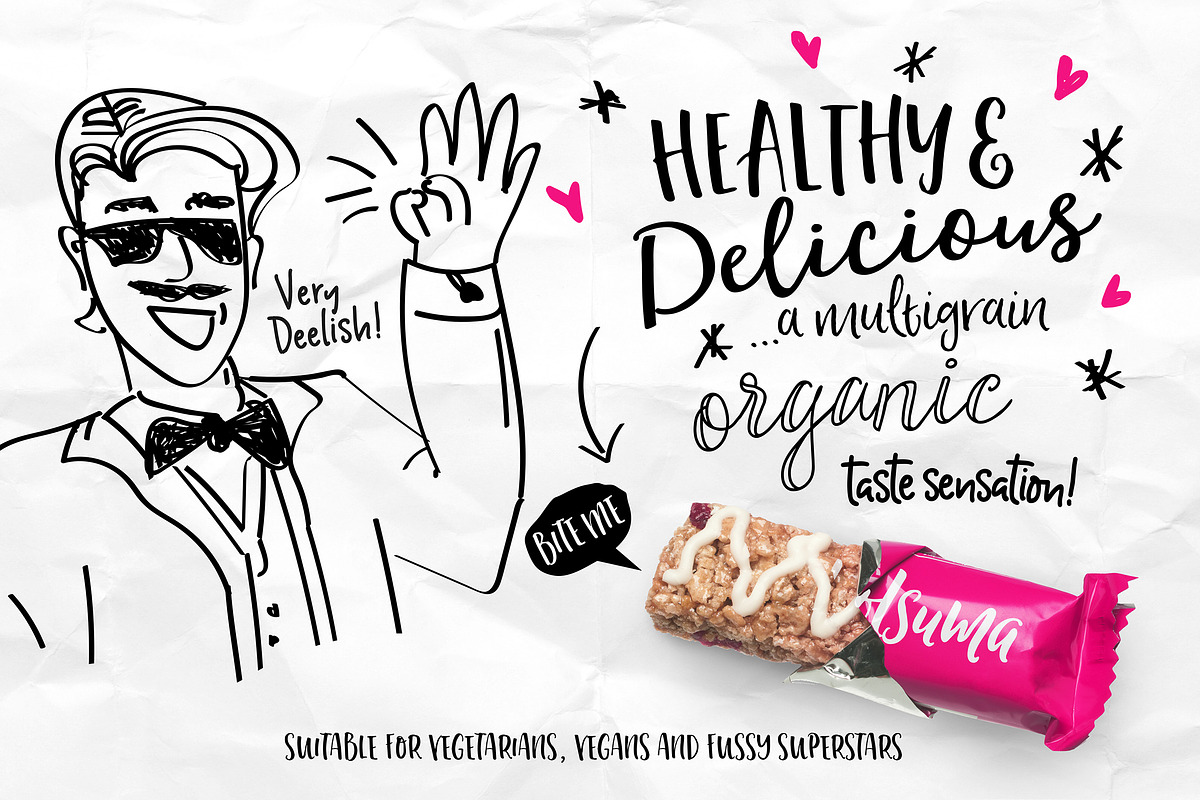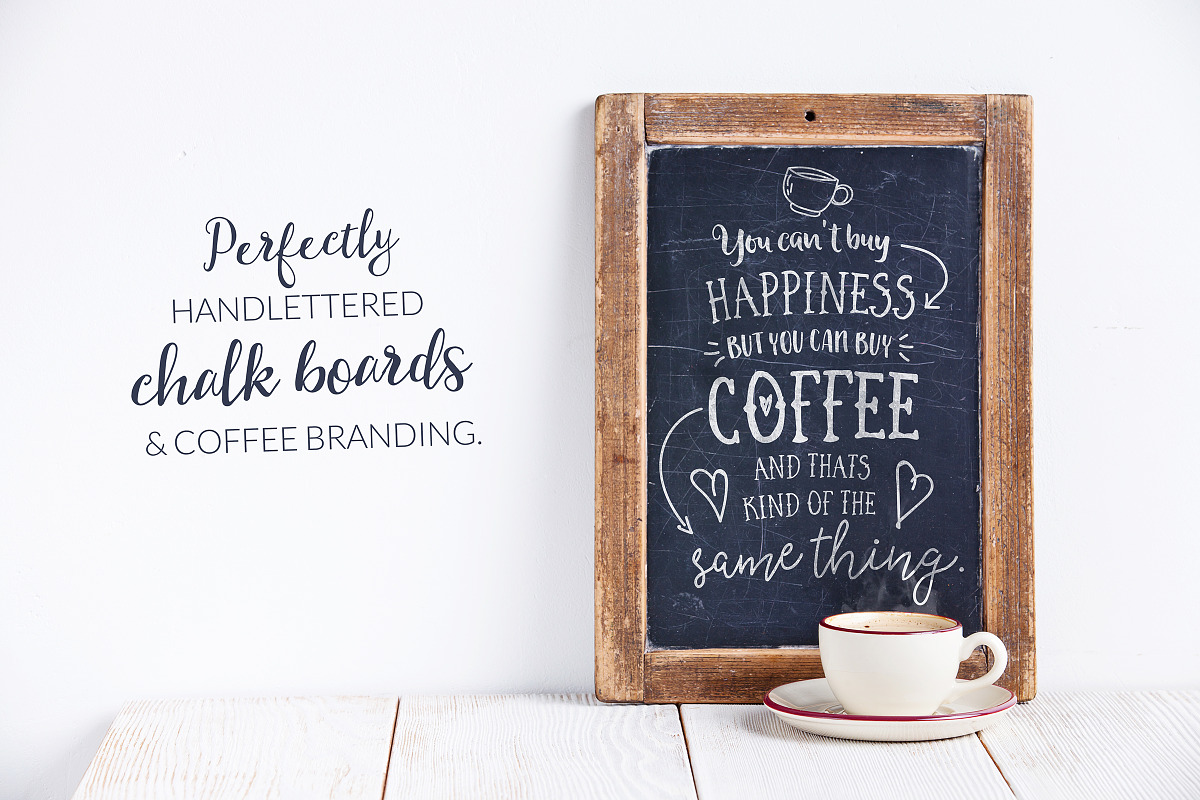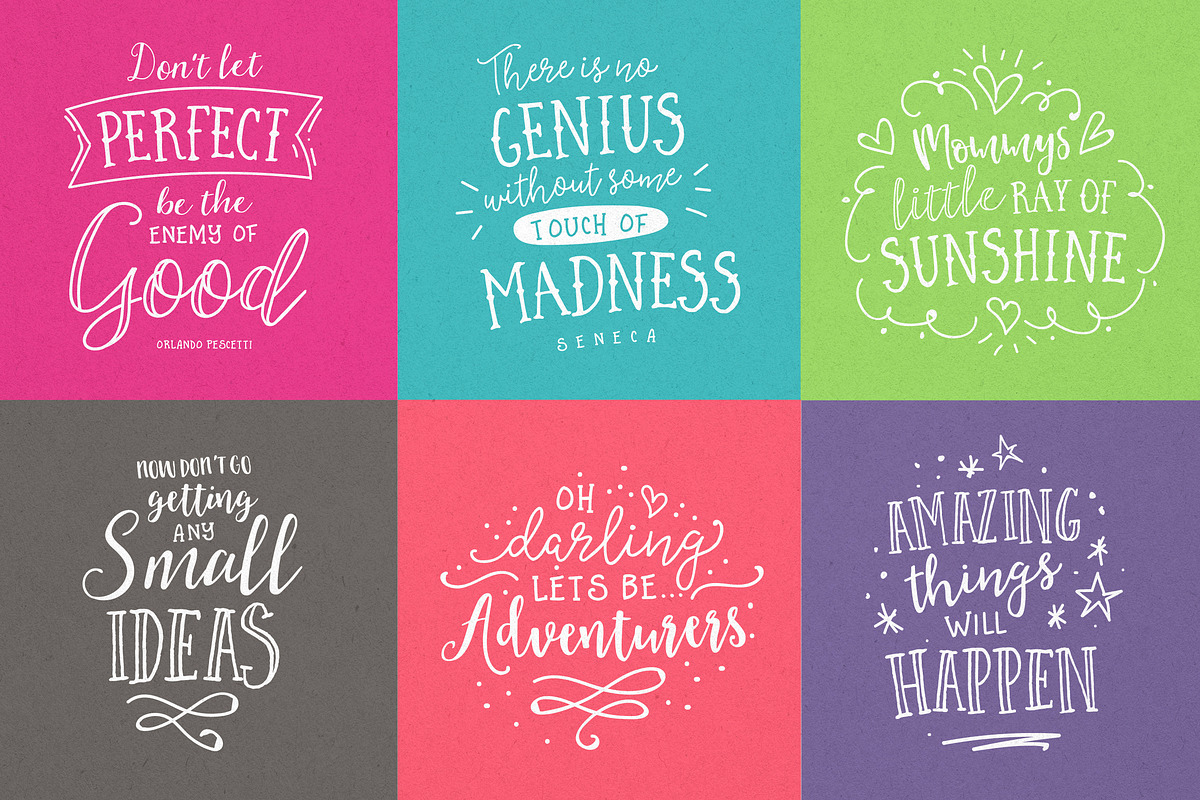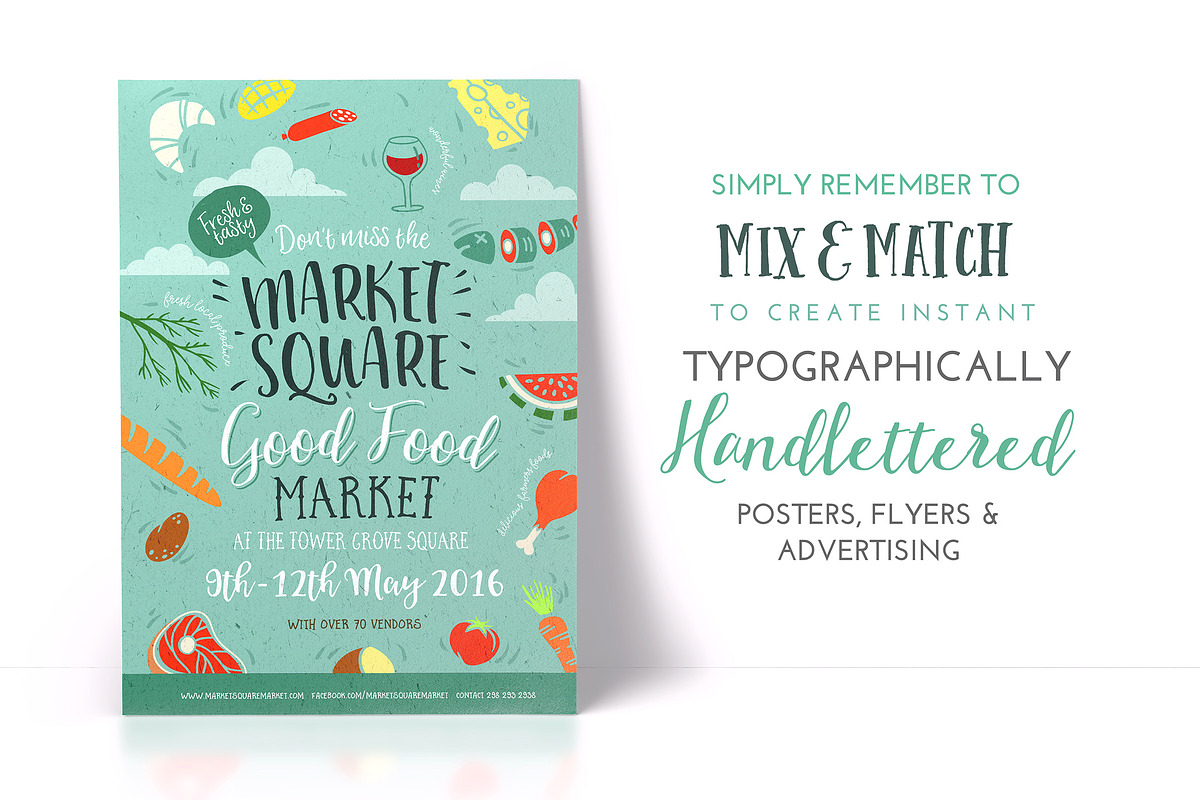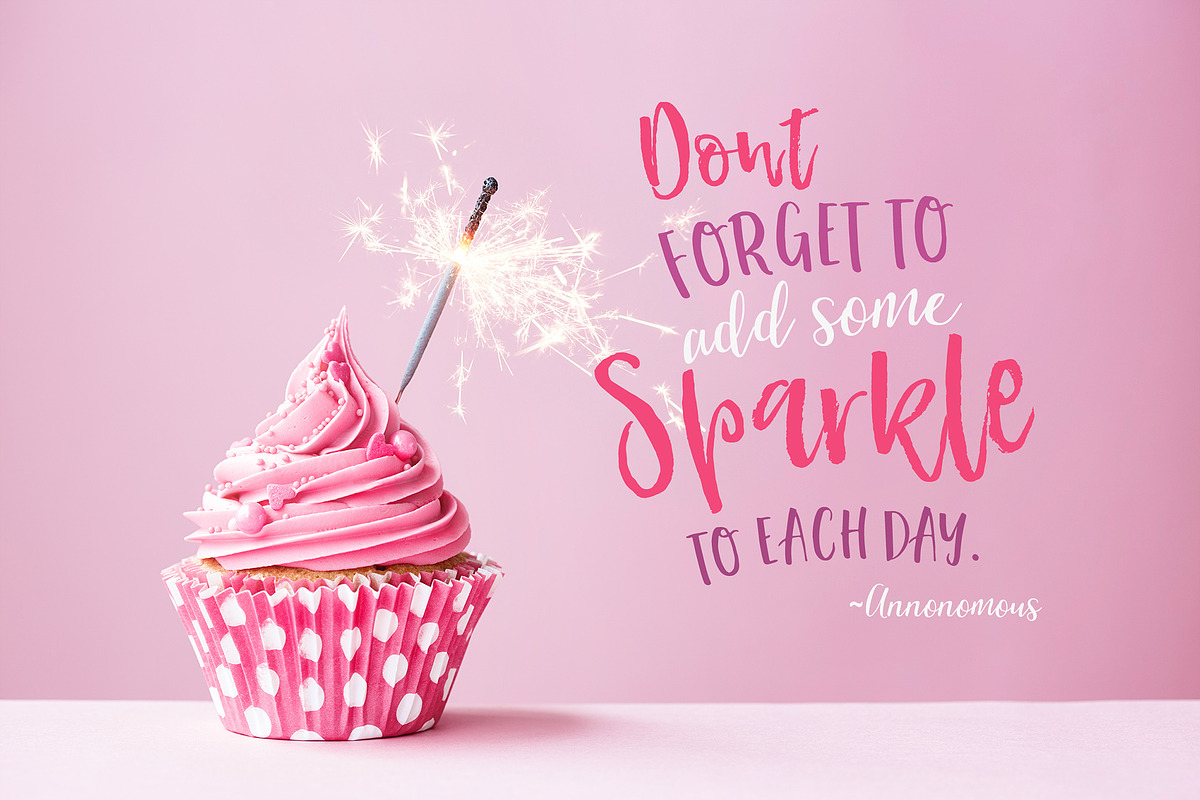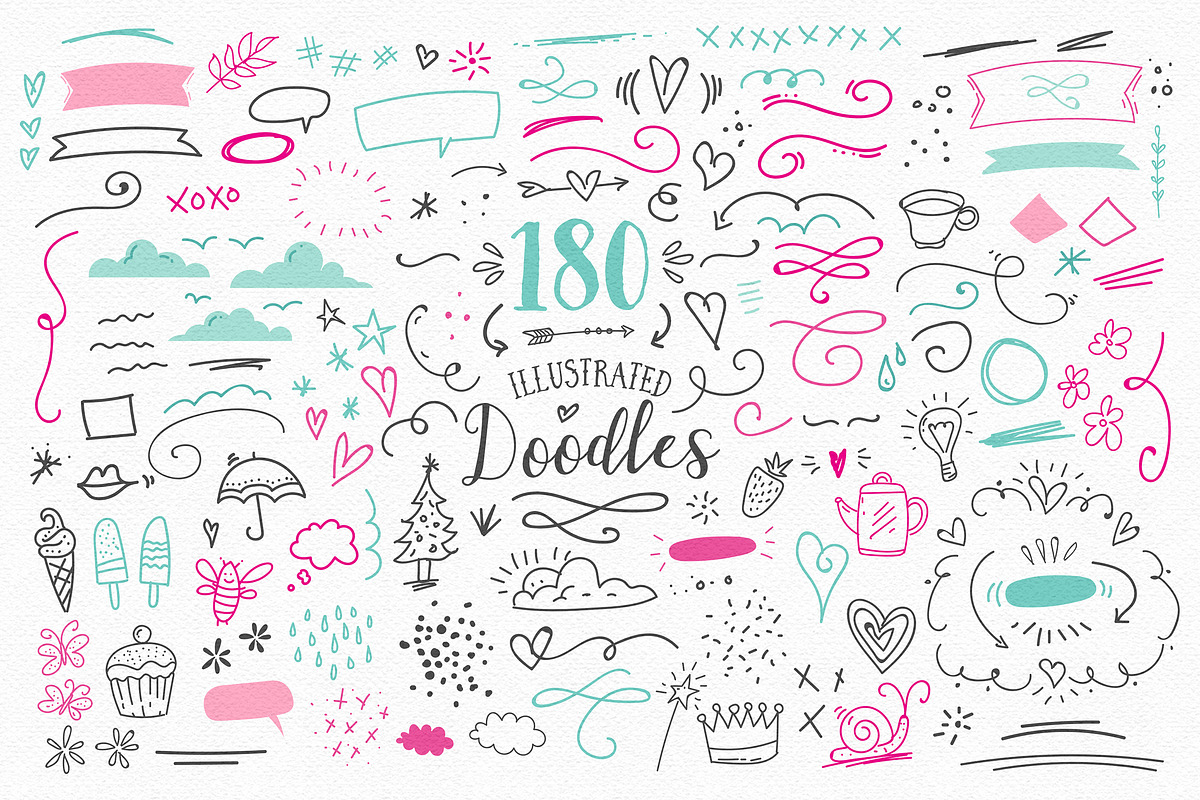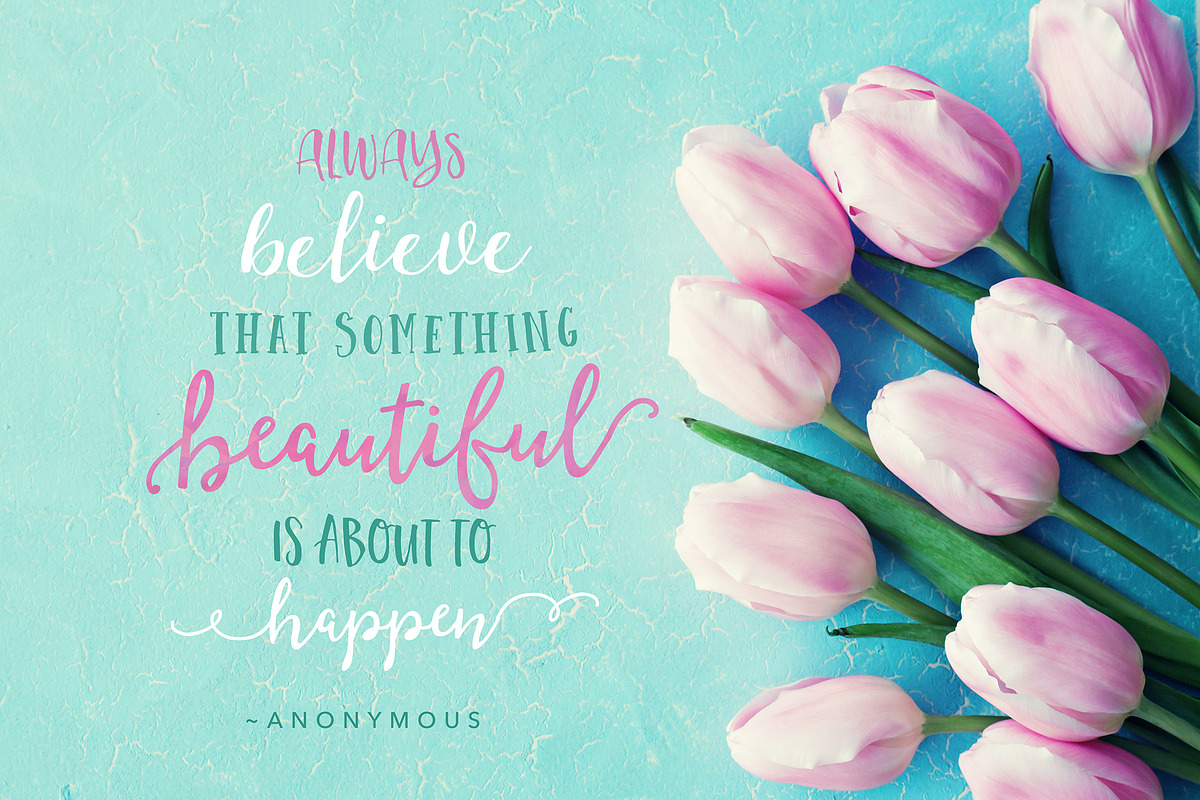
24 Individual Fonts, 180 Vector Illustrations and 12 Premade Logo Templates!
Introducing The Carefully Curated Hand-Lettered Fontbox- with bonuses! ! A fontastic set of carefully-paired, handcrafted fonts, designed to work together in harmony to create awesome hand-lettered typographic designs. As a supersweet bonus you get Twelve Free Premade Logo Templates AND 180 freshly added Illustrations to help you create designs similar to those show in the previews :)
INCLUDED IN THE FONTBOX :
1.) 16 Hand-lettered, design-ready fonts :
Biscuit Base Script : A playful yet neat brush script with a bouncy baseline, and a bold presence.
Boathouse Script : An elegant Duo Script - one hollow, one solid, a off kilter script with thin and thick lines.
Deliciously Script : A Calligraphy Script, with fine imperfections and sharp edges and a wide gait.
Gojiberries: An All-uppercase thick-edged brush font with a care-free character.
Harelybuck Script : A Rough Dry Brush Script , with a casual character, but fancy attitude.
Jeronimo Typeface : A dry-edged marker font, with a playful baseline - in two variants , one more playful that the other.
Jolly Sailor : An old-style' Tattoed Sailor' style font , with imperfect inky edges, with a bold version too.
Loveluck Script : A little beauty - a fine, smooth monoline script , with playful curvature and delightful end swashes. Included with a thicker brush version for when required.
Lemonade Stand : A juicy script with a delicious vibe and rounded edges - available in an italic version also.
Maraschino Typeface : A playful Serif font with messy lines, one hollow one solid.
Masquerade : A dinky serif font with a cute disposition, in regular and bold.
Novascotia : A thicker inky typeface with a smooth disposition, looks great in all caps too.
Peaches & Pistachio : A casual handwritten font, with personal character, and a relaxed mentality.
Shoestrings : A delightfully playful uppercase script with wistful connections and inky edges, in a tall and short version.